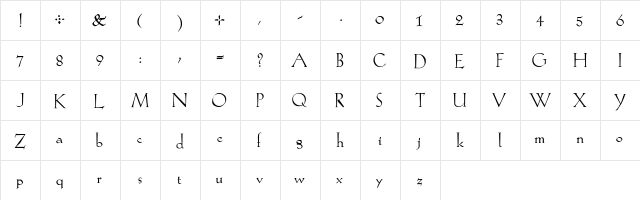
HookRead Regular Font Preview
HookRead Regular
Design Context for HookRead Typeface
HookRead takes a measured approach to typography — its balanced proportions and neutral character make it a reliable workhorse for both digital and print work.